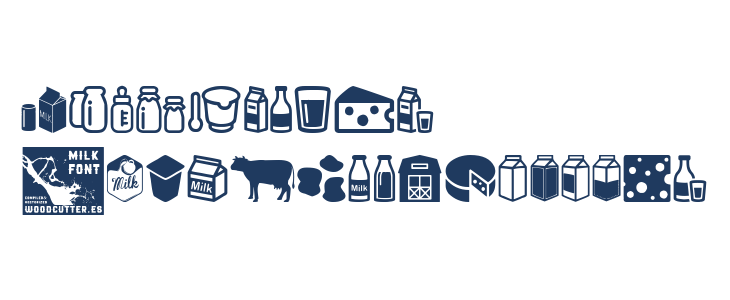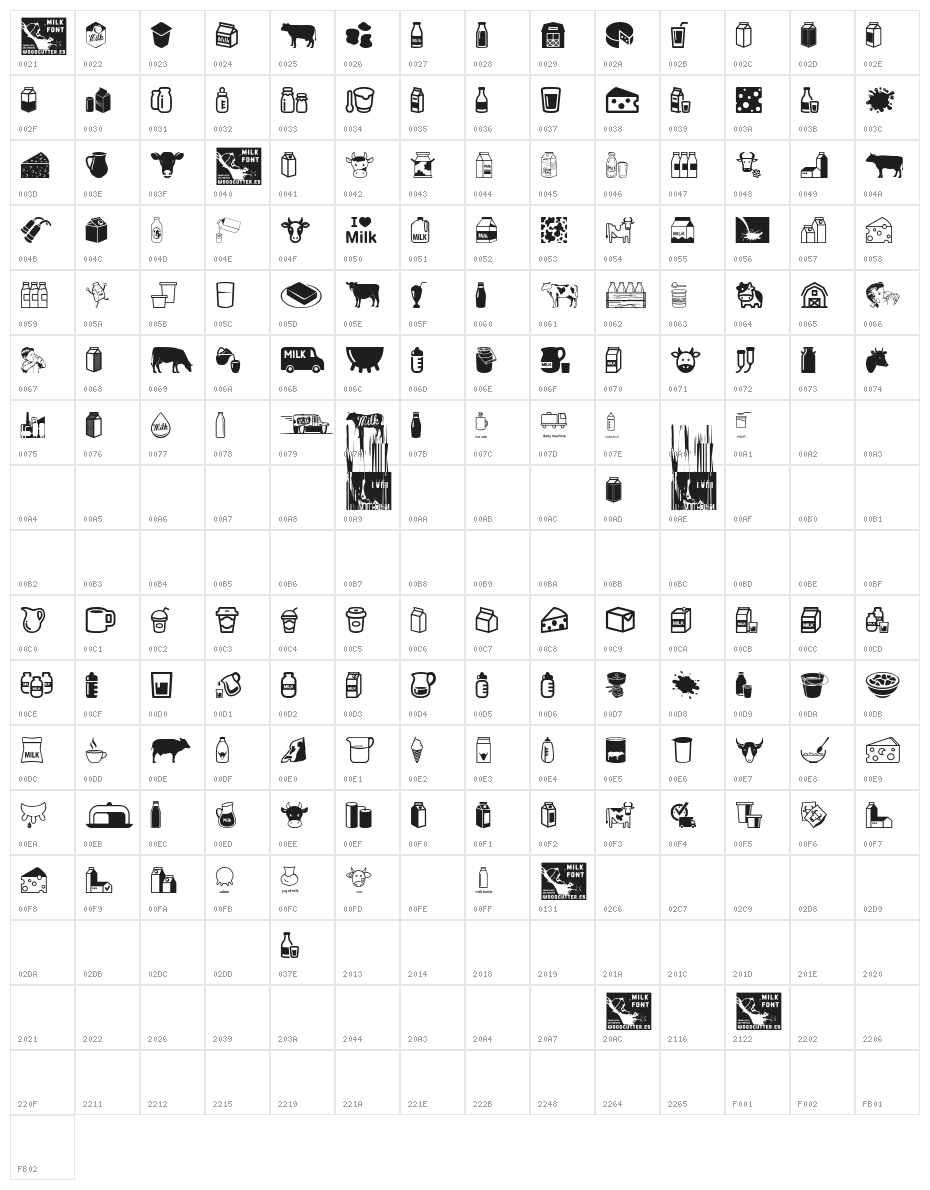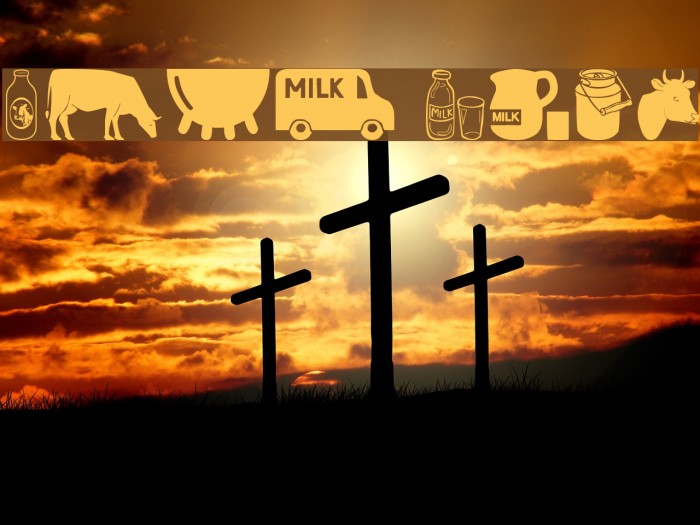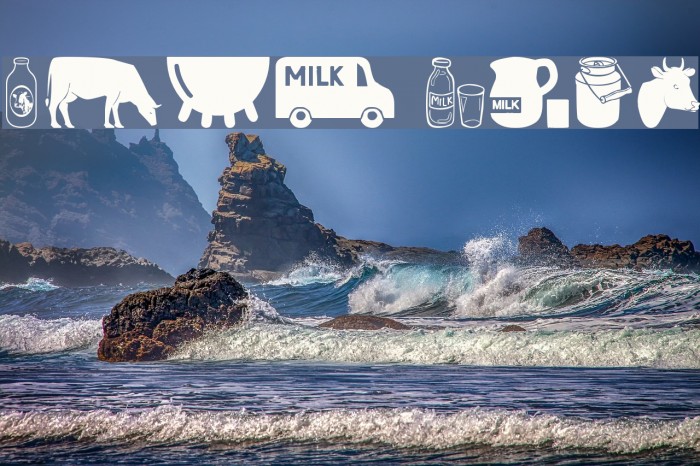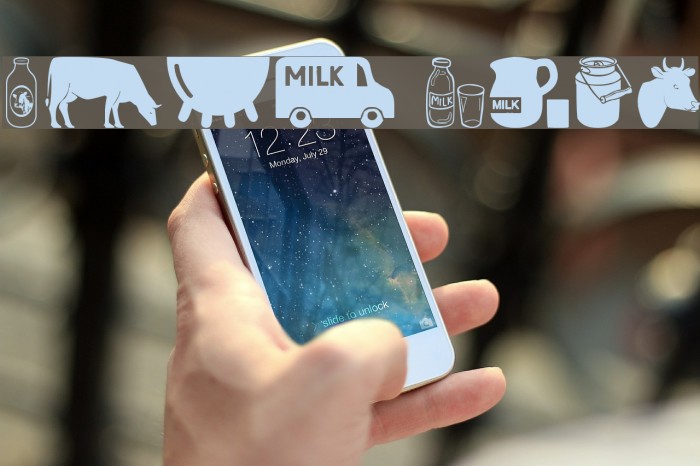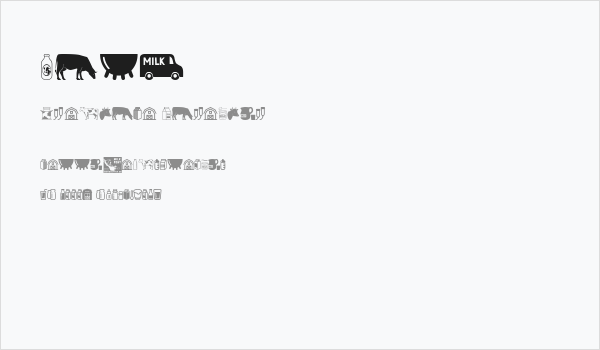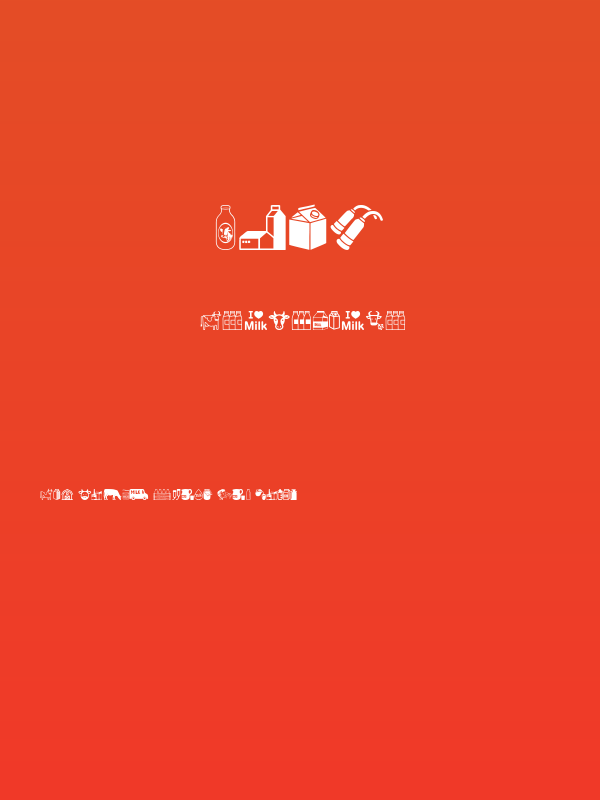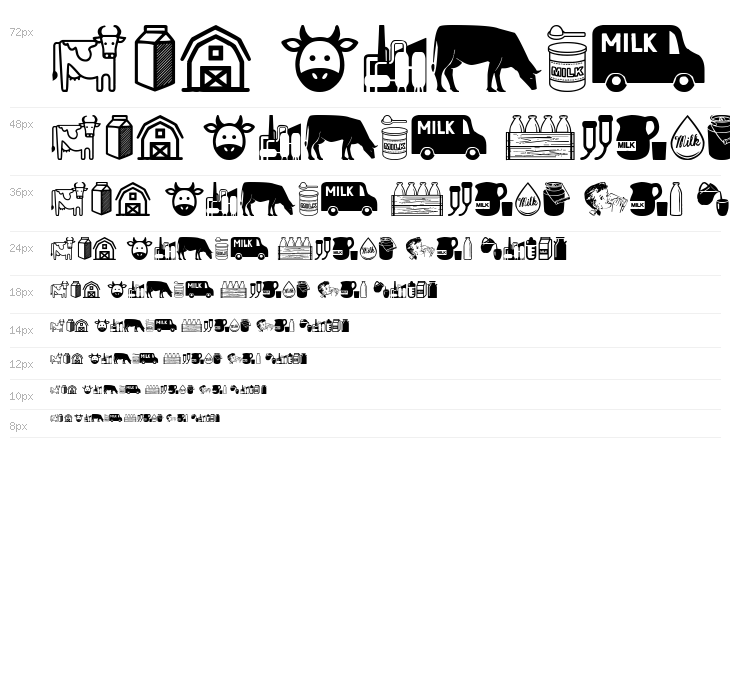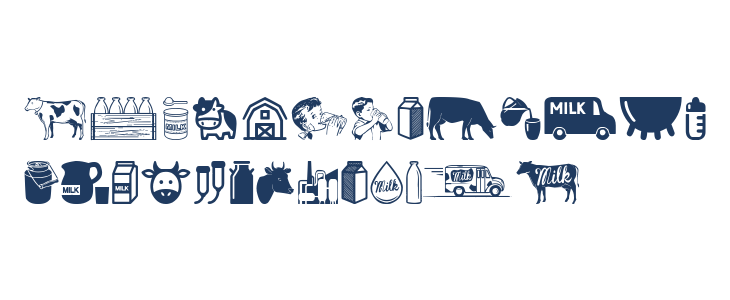
Milk Font
Milk Description
A playful, illustrative dingbat font featuring various milk-related icons such as cows, milk cartons, bottles, cheese, barns, and dairy equipment. The icons are bold, high-contrast, and rendered in a cartoonish, hand-drawn style, making them visually engaging and easy to recognize.
| Overall Style | Playful, Decorative, Cartoonish |
| Use Case | Icons, Decorative elements, Themed branding, Educational graphics |
| Proposed Projects | ChildrenΓ’β¬β’s books, educational materials, food packaging, farm branding, infographics, playful posters. |